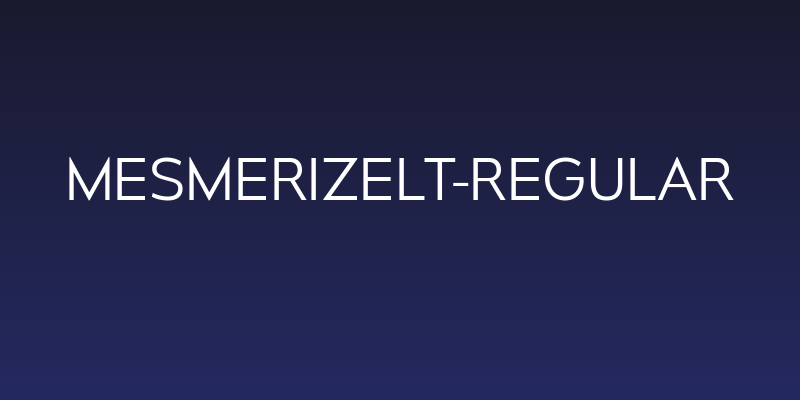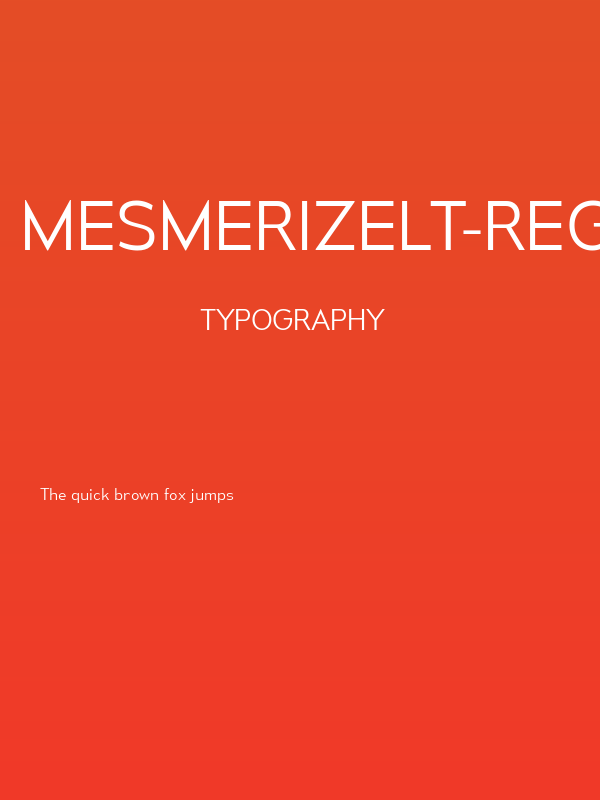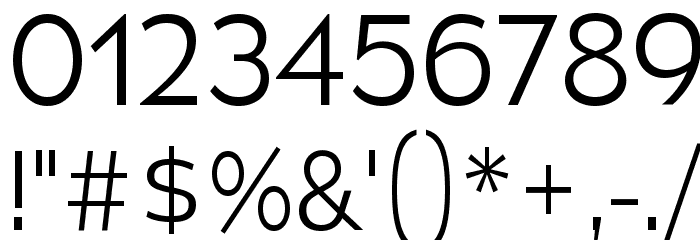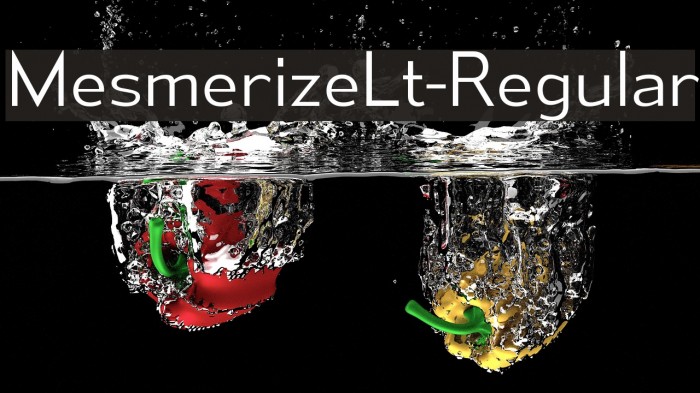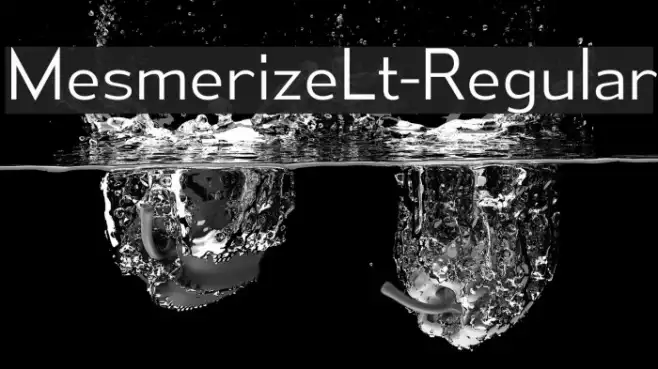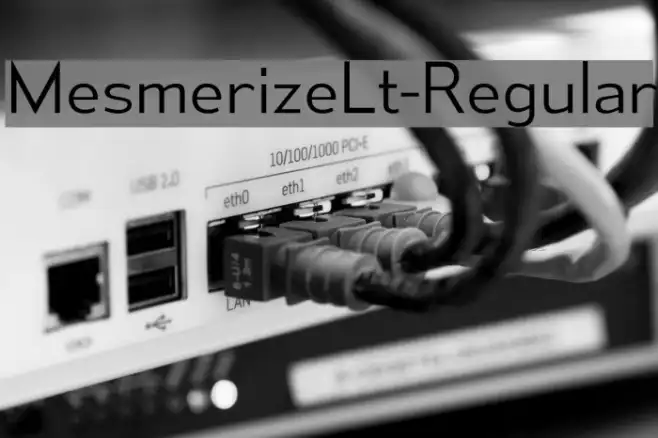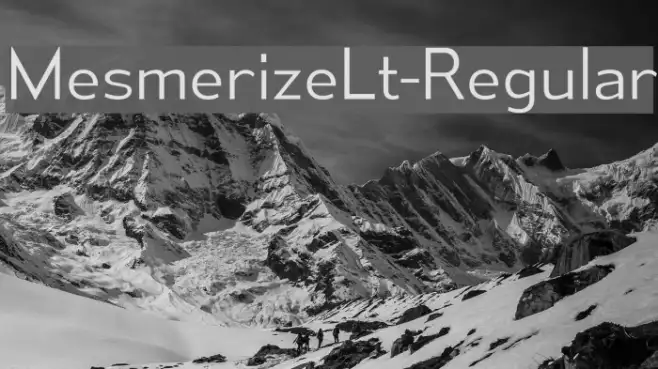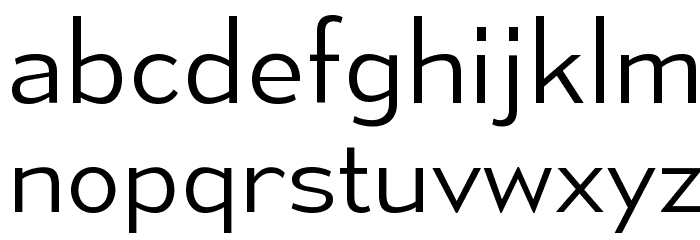
MesmerizeLt-Regular Font
MesmerizeLt-Regular Description
This font features a clean and modern sans-serif design with a geometric structure. The characters are well-proportioned, offering a harmonious balance between straight lines and subtle curves. The uppercase letters are bold and commanding, while the lowercase letters maintain a friendly and approachable appearance. The numerals are clear and easily distinguishable, making them suitable for various applications. Special characters are included, providing versatility for different contexts. The overall design is sleek and contemporary, making it ideal for digital and print media.
| Proposed Projects | Ideal for web design, branding, advertising, and editorial layouts. |